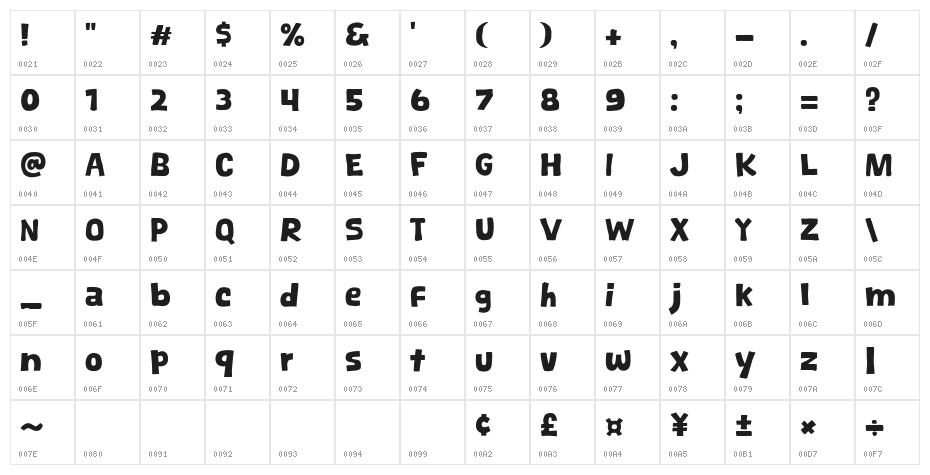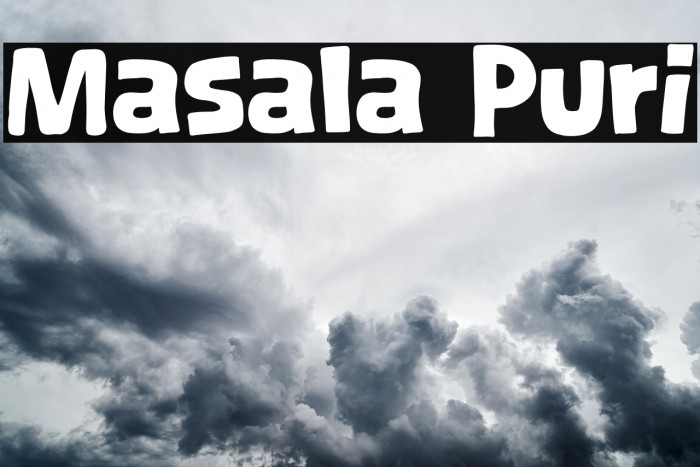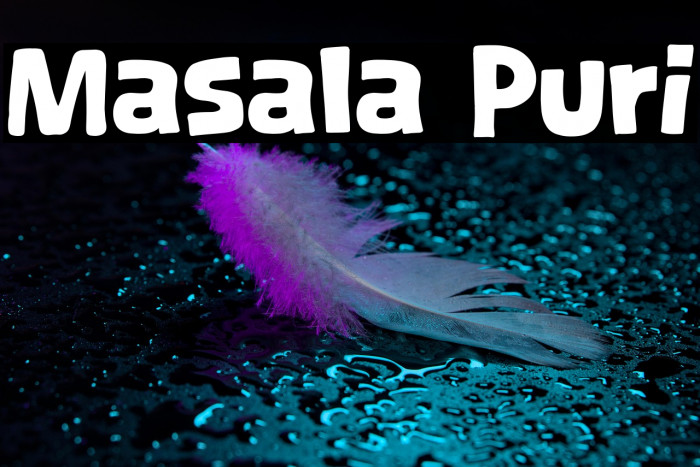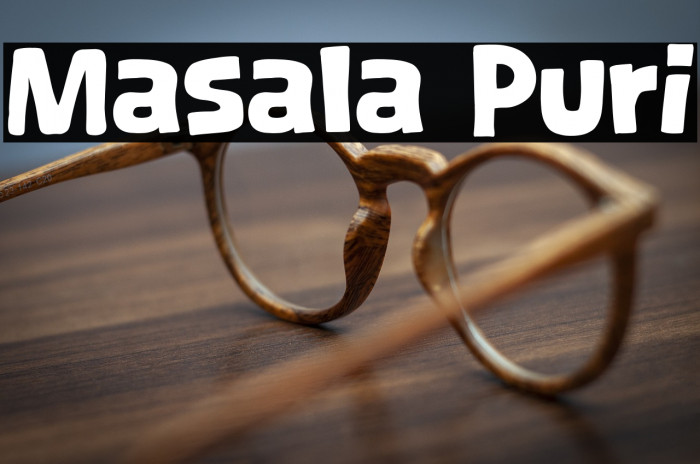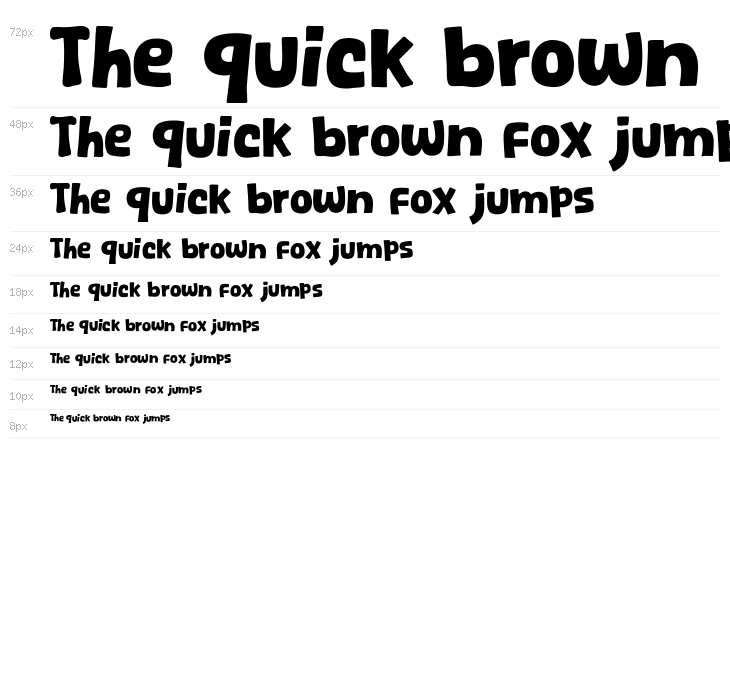
Masala Puri Font
Masala Puri Description
This font features a playful and bold design, characterized by its thick, uneven strokes and slightly irregular shapes. The letters have a hand-drawn quality, giving them a whimsical and informal appearance. The uppercase and lowercase letters maintain a consistent style, with rounded edges and a slightly tilted orientation, adding to the casual feel. The numbers and special characters follow the same design principles, ensuring a cohesive look across all glyphs. This font's unique style makes it stand out, perfect for projects that require a fun and engaging visual element.
Overall StylePlayful, Whimsical
Proposed ProjectsIdeal for children's books, playful branding, casual invitations, and creative posters.